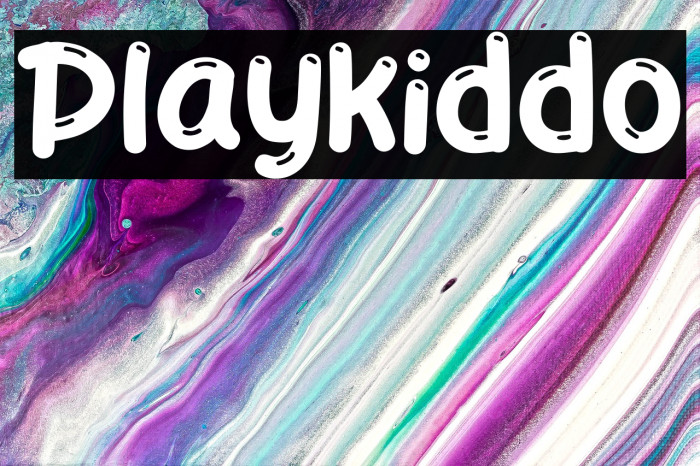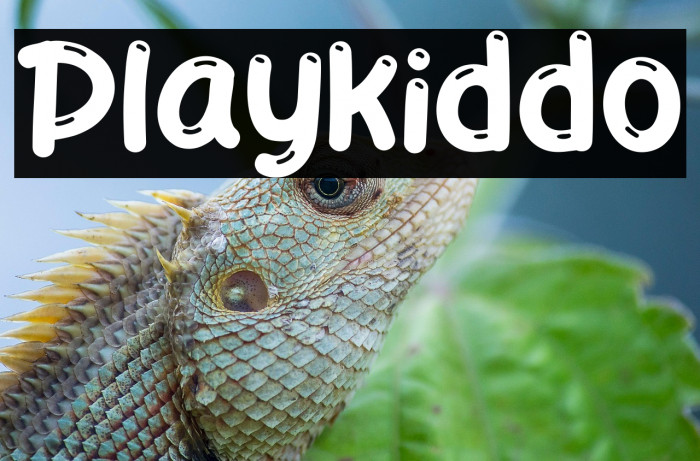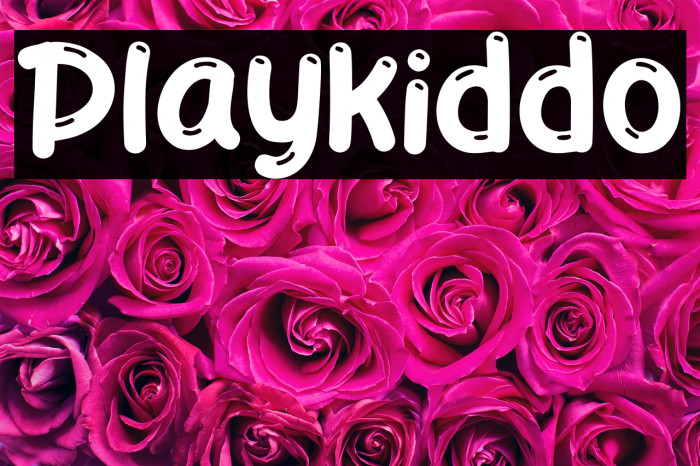
Playkiddo Font
Playkiddo Description
This playful and whimsical font features rounded, bubbly characters that exude a sense of fun and creativity. The letters are bold and slightly irregular, giving them a hand-drawn appearance that is both approachable and friendly. The font includes both uppercase and lowercase letters, as well as numbers and a variety of special characters. Its thick strokes and rounded edges make it highly legible, even at smaller sizes. The overall style is reminiscent of children's handwriting, making it ideal for projects that require a youthful and energetic vibe. The character spacing is normal, providing a balanced and cohesive look across all text.
| Overall Style | Playful, Whimsical |
| Proposed Projects | Ideal for children's books, educational materials, playful branding, and toy packaging. |